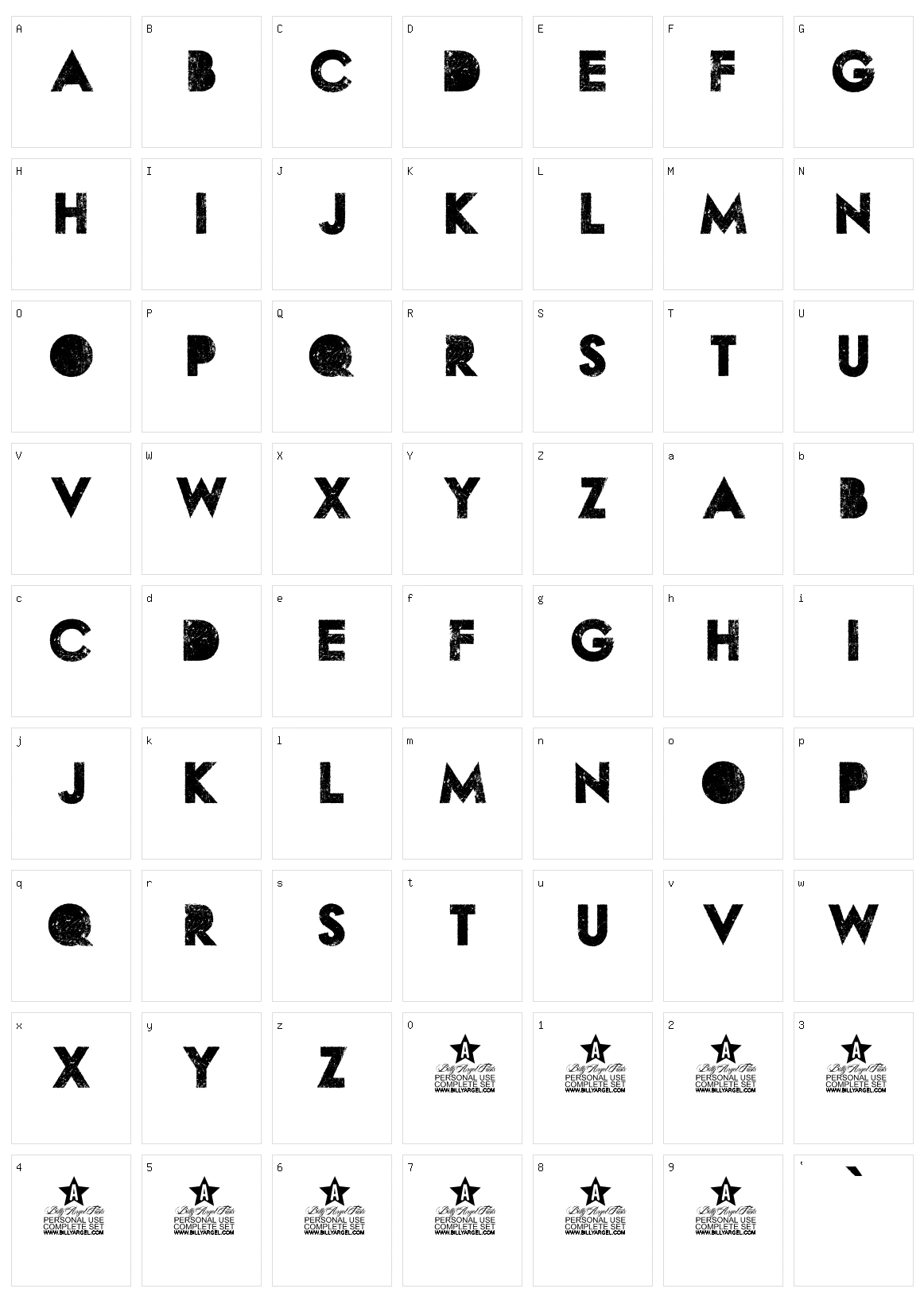
The free font Wasted is carefully designed by Billy Argel Fonts ®, showcasing a thoughtful balance of creativity and usability and falls under the Eroded font style. When you download the ZIP file, it contains only 2689.48 KB of font files, making it lightweight and quick to download. Please review the license details below to understand permitted usage and distribution rights. If license information is not available, we recommend using this font for personal projects only or contacting the author directly for commercial usage permissions.